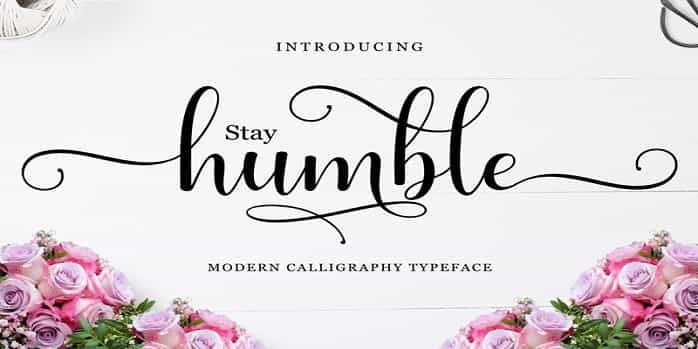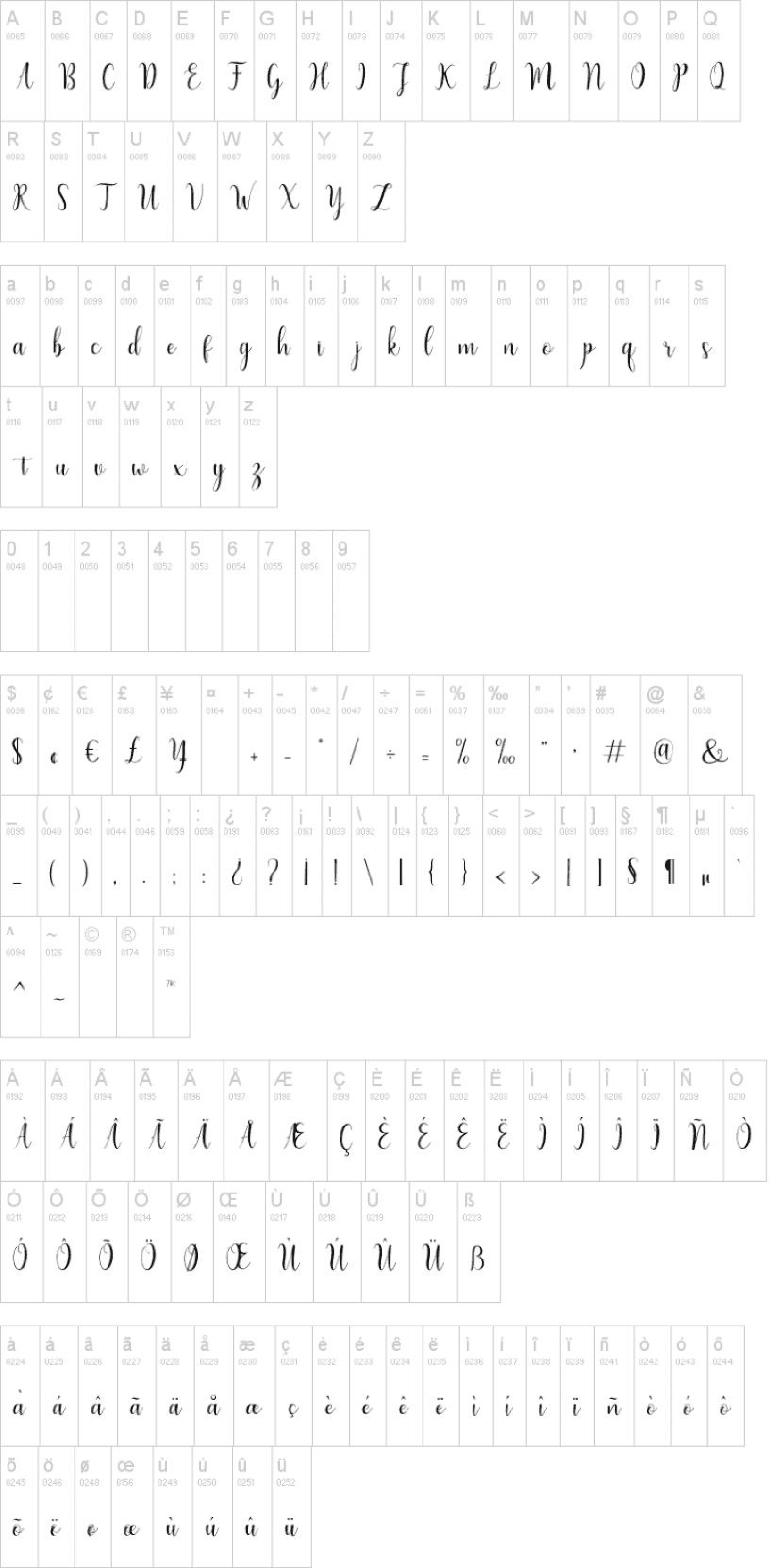
Humble is a Calligraphy font that is of high quality, designed by Amar Lettering and is free to download for personal use. The free version includes all upper case and lower case letters and a few special characters.